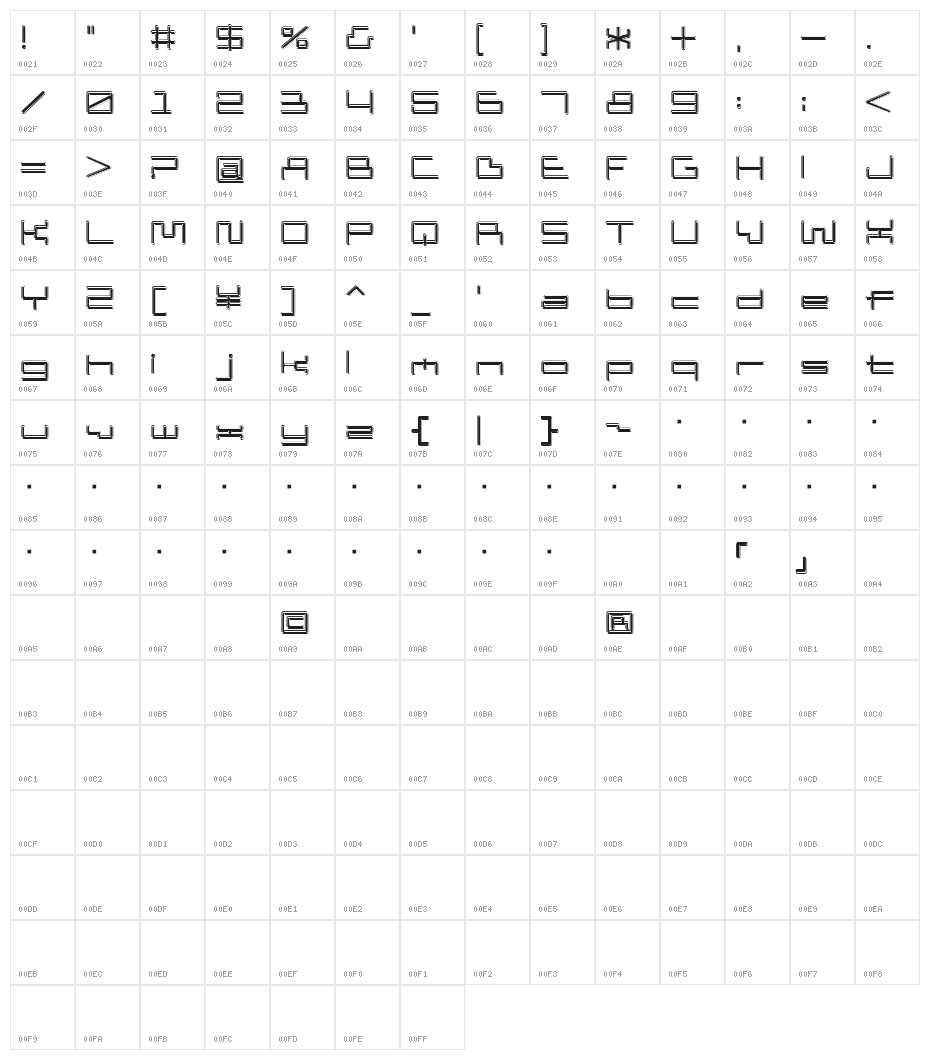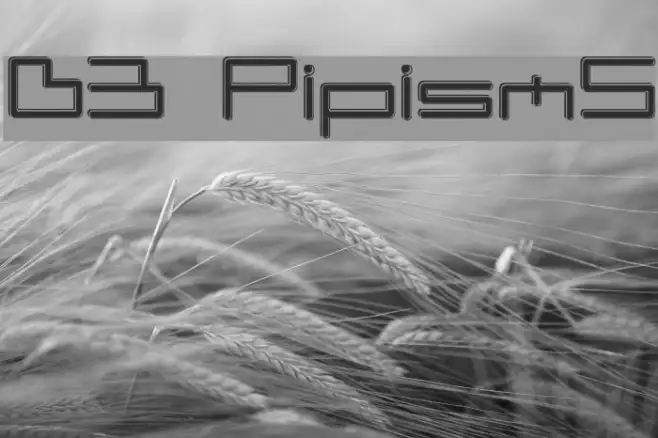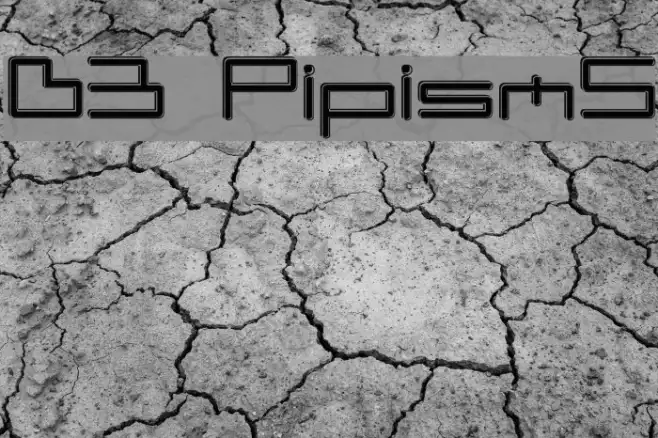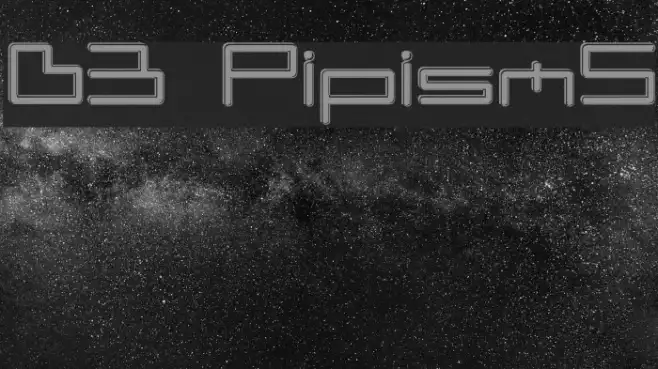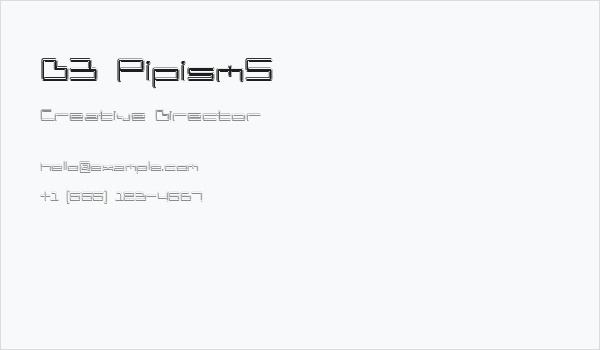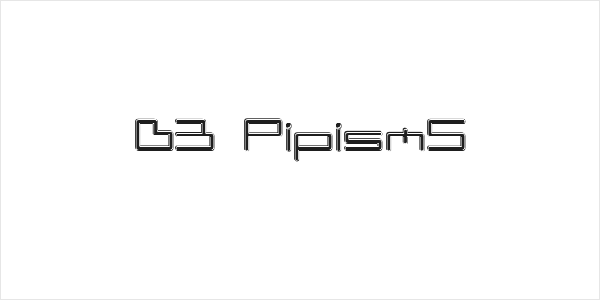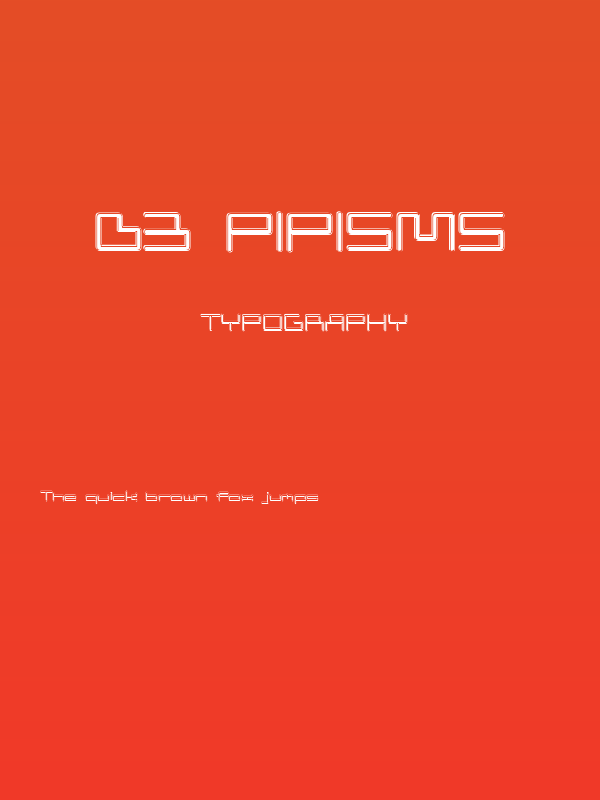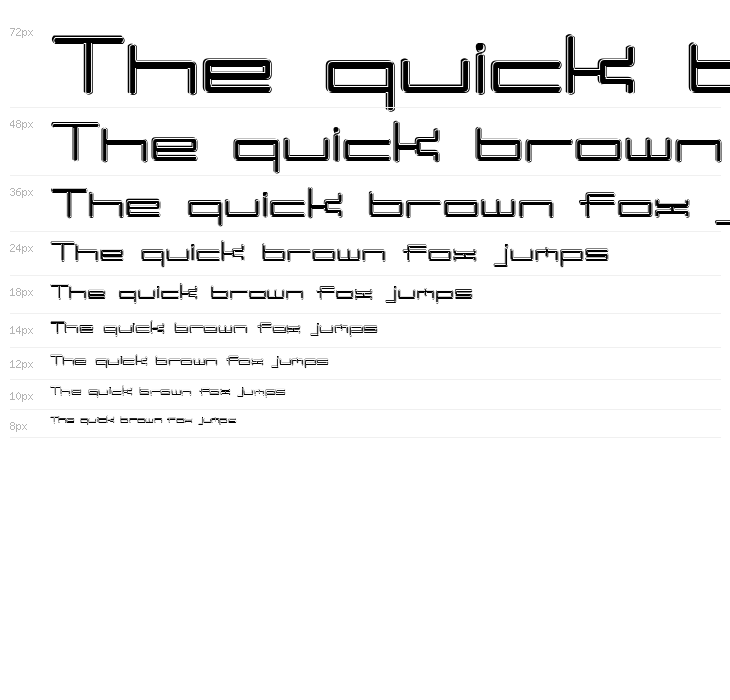
D3 PipismS Font
D3 PipismS Description
This font features a futuristic, geometric design with a distinct outline style. Each character is crafted with precision, showcasing a uniform thickness that gives it a modern and tech-inspired appearance. The uppercase and lowercase letters maintain a consistent height, contributing to a cohesive look. The numerals and special characters are designed to match the overall aesthetic, making it suitable for digital and print media. The font's unique outline effect adds a layer of depth, making it stand out in various design contexts.
| Proposed Projects | Ideal for technology branding, sci-fi posters, digital interfaces, and modern graphic design projects. |